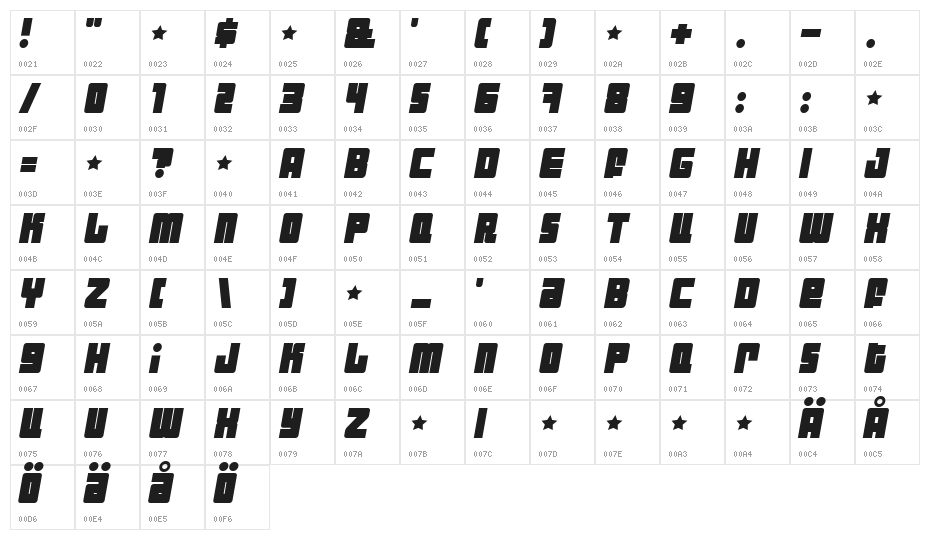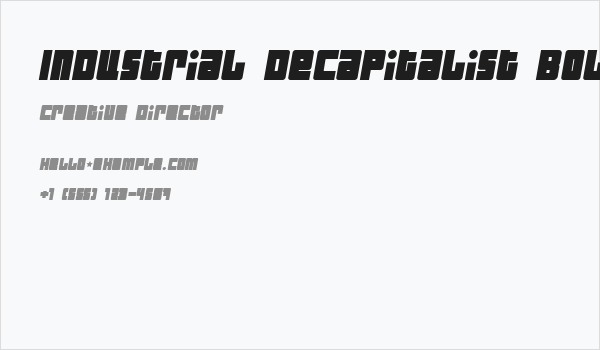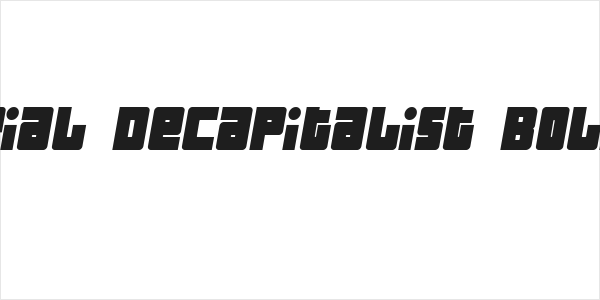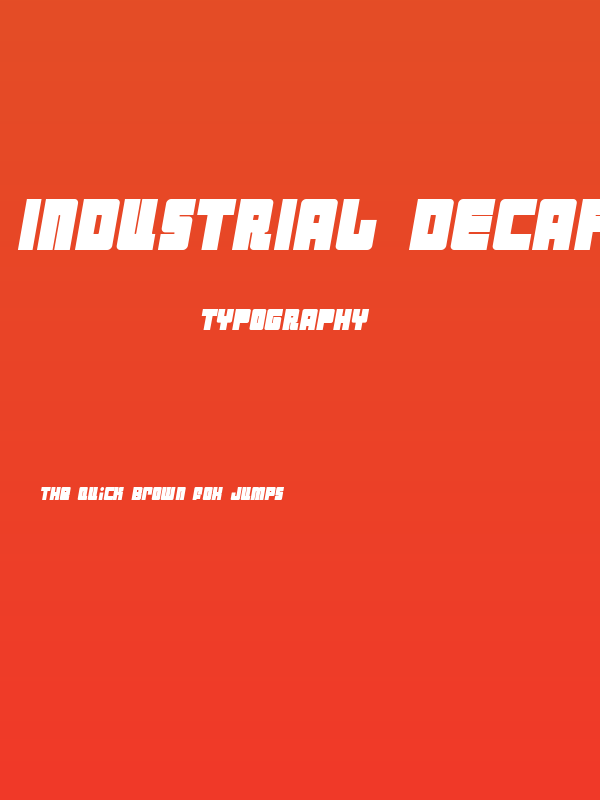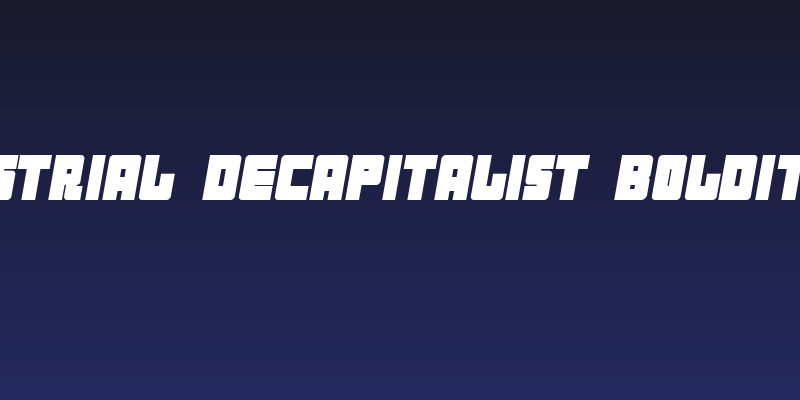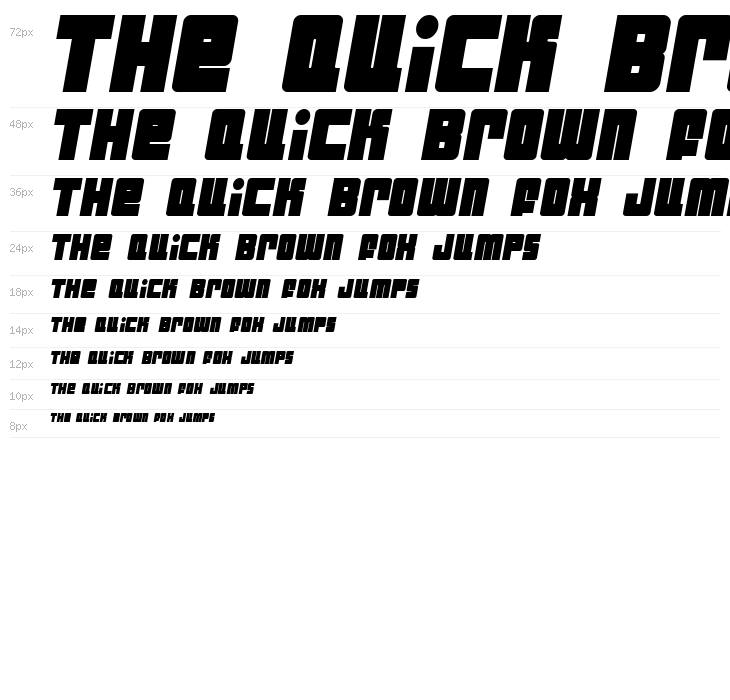
Industrial Decapitalist BoldItalic Font
Industrial Decapitalist BoldItalic Description
This font features a bold and italicized style with a strong industrial and futuristic aesthetic. The characters are blocky and geometric, with sharp angles and a consistent stroke width that gives it a robust and impactful presence. The uppercase and lowercase letters maintain a uniform height, creating a cohesive look. The numbers and special characters follow the same design principles, ensuring a seamless integration across all text elements. The font's boldness and italic slant add dynamism and energy, making it suitable for attention-grabbing designs.
| Proposed Projects | Ideal for use in branding, posters, video game design, and any project requiring a strong, modern aesthetic. |